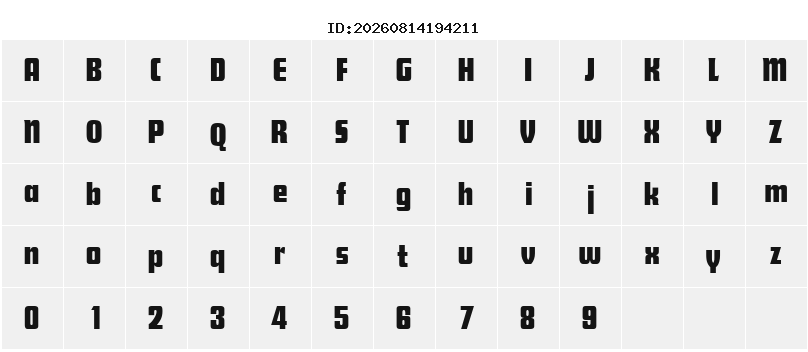
SteileFunction DB Preview
• Font Name: SteileFunction DB
• Full Font Name: SteileFunction-Regular DB
About SteileFunction DB.ttf
SteileFunction DB.ttf is a modern, elegant sans-serif font designed for ultimate readability and visual harmony. Perfect for branding, headlines, web design, and print materials.